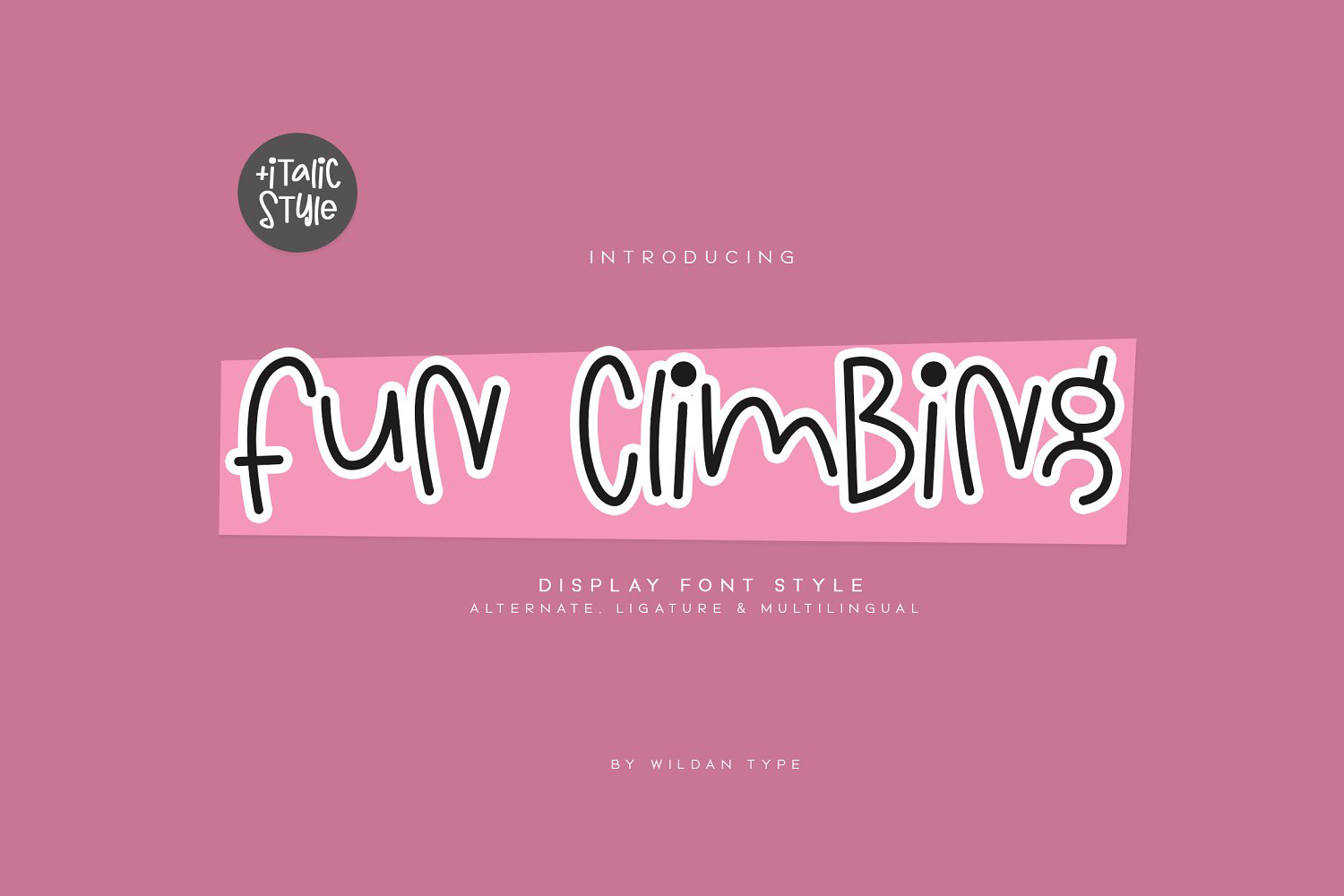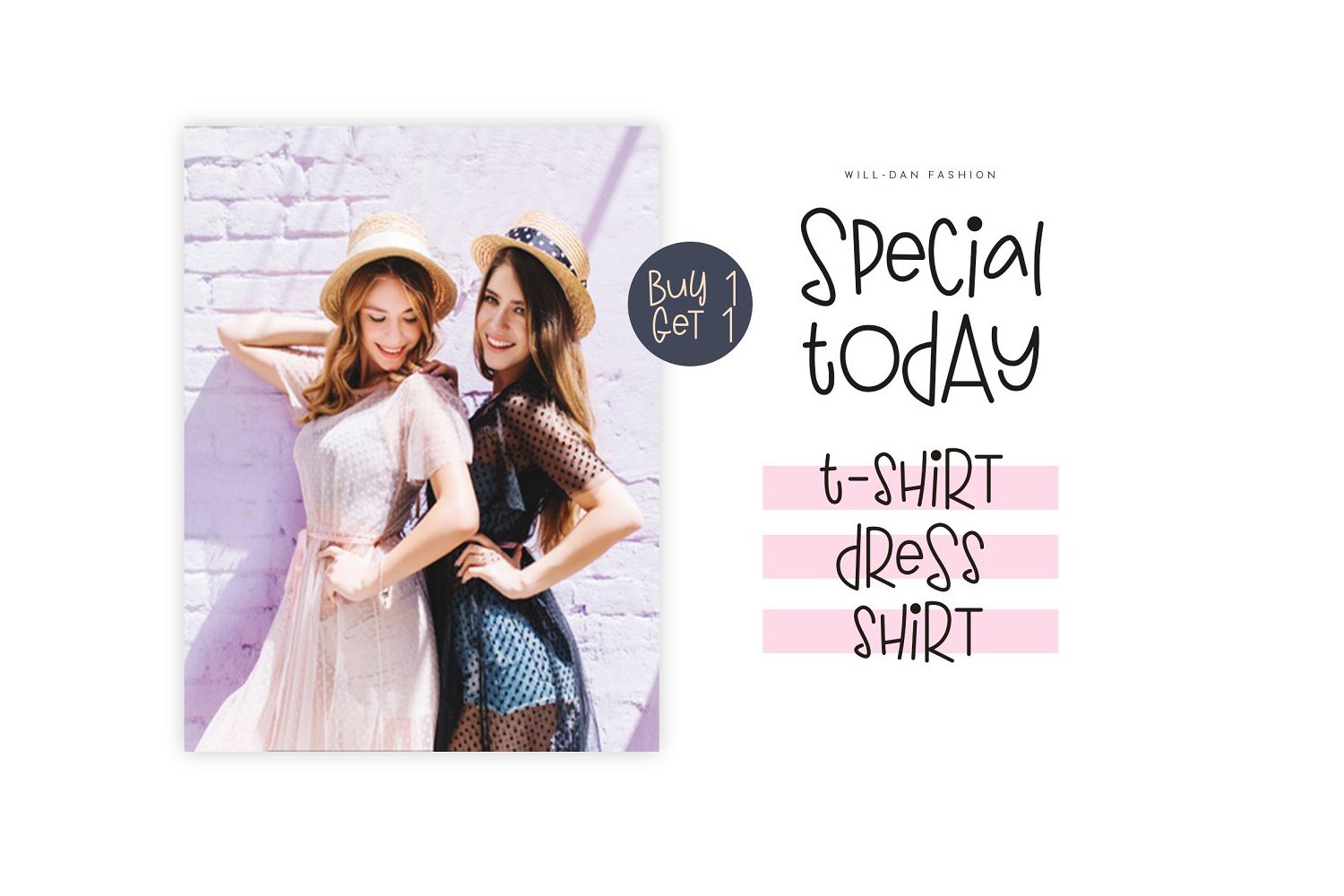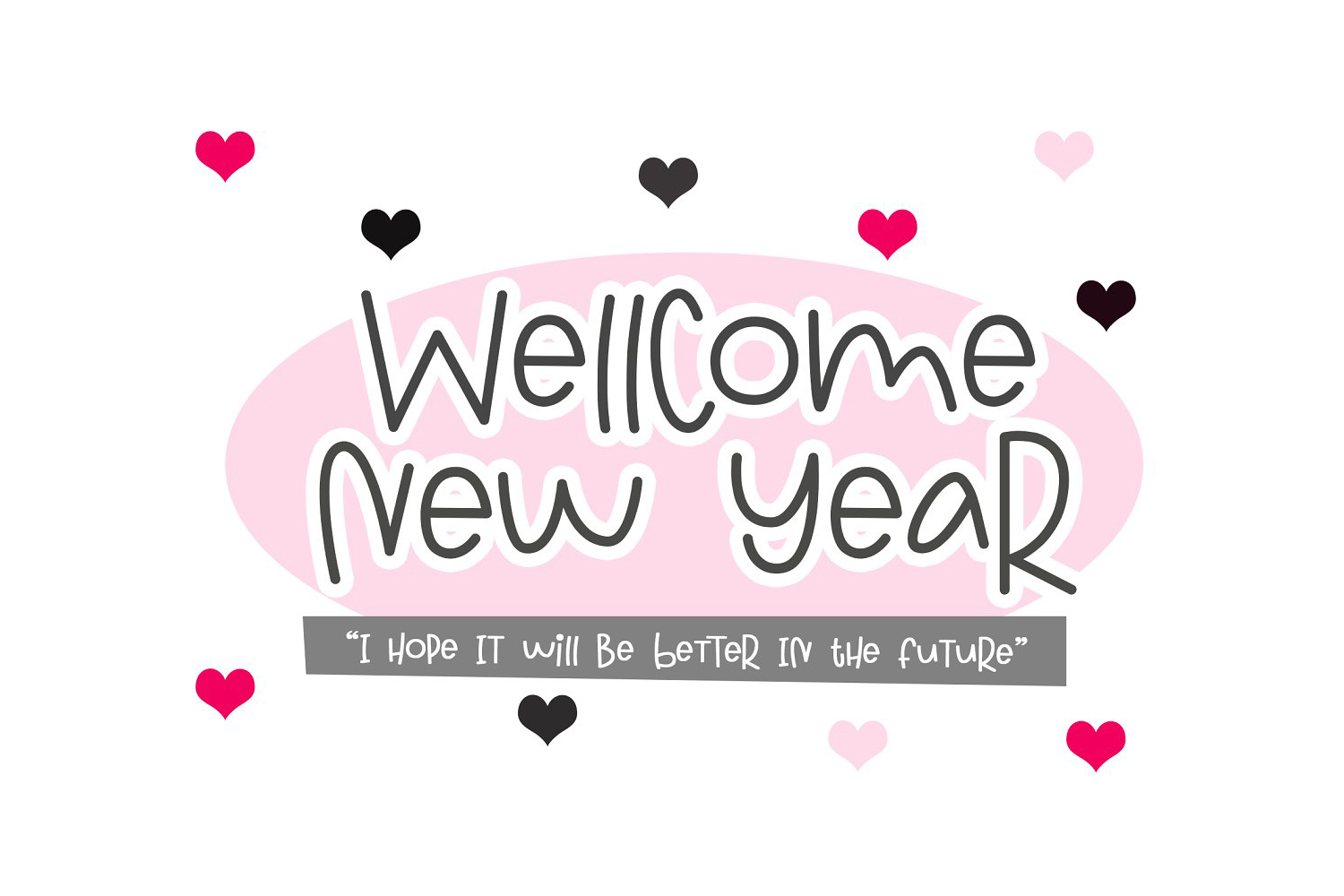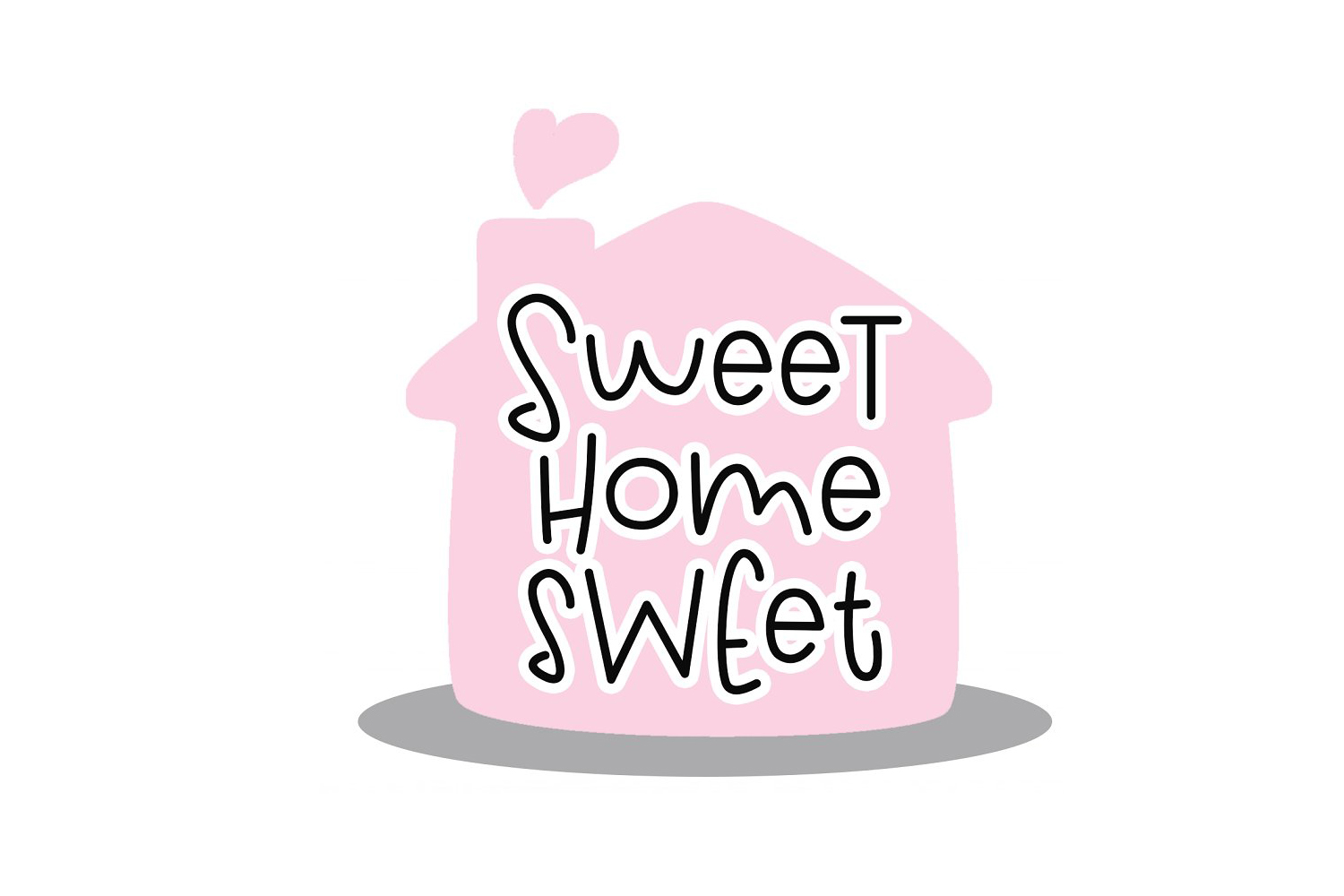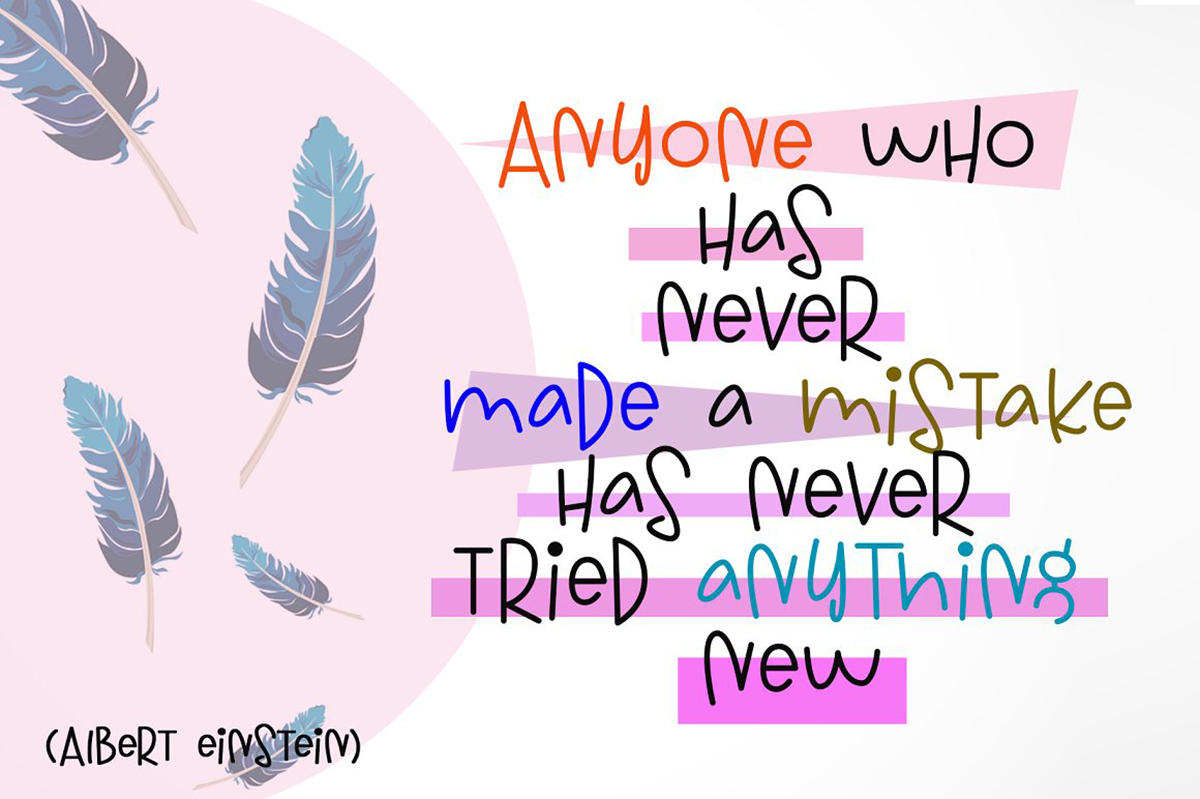
Fun Climbing Free Font
Fun Climbing Free Font is a delightful and approachable handwritten font that radiates joy and positivity. Its inherent playfulness lends itself perfectly to a wide range of creative projects. Whether you’re designing inspirational wall posters or seeking a font that effectively communicates your brand’s personality, Fun Climbing is the ideal choice. Embrace the fun-loving spirit of this font and let it infuse your projects with warmth and charm. This free typeface was designed by a talented Wildan Syah. If you like it don’t forget to check out the full version.